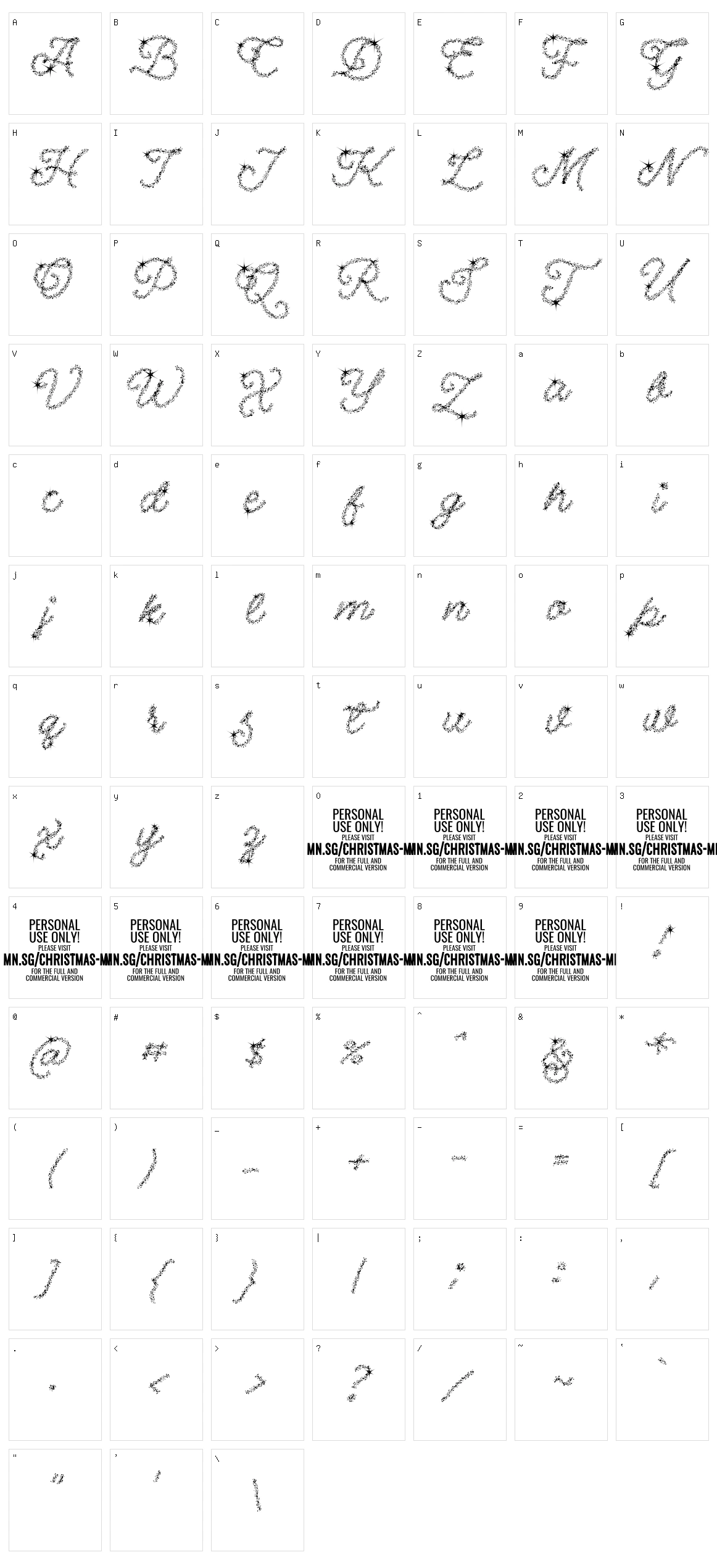
Christmas Miracle is a decorative Christmas font.
This original typeface, drawn by Måns Grebäck, brings out the spirit of the season.
Write for example [Christmas] to make a decorative version of the word. Available words: Wish, Wishes, Merry, Christmas, Happy, New Year
It comes with a bonus font called Christmas Banners, to be used as background or as a decorative element along with this or any other font.
How to use the Banners font: Write for example ABC to create a beginning, middle and end, or ABBBC for a longer banner.
It has extended support for language, numbers, punctuation and symbols.